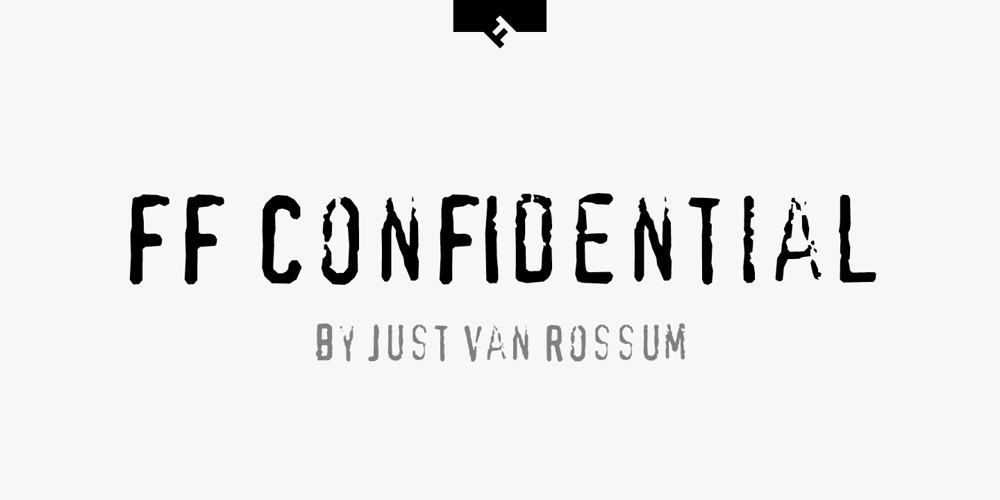
FF Confidential Font Family was designed by Just van Rossum and published by FontFont. FF Confidential contains 1 styles and family package options. Dutch type designer Just van Rossum created this display FontFont in 1992. The font is ideally suited for advertising and packaging, film and tv, editorial and publishing as well as music and nightlife. FF Confidential provides advanced typographical support with features such as ligatures. It comes with tabular lining figures. As well as Latin-based languages, the typeface family also supports the Greek writing system.